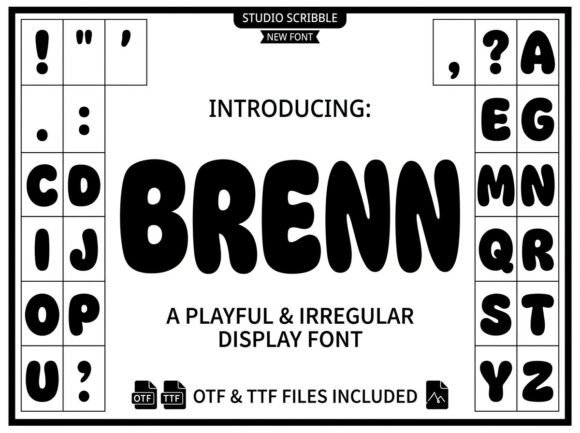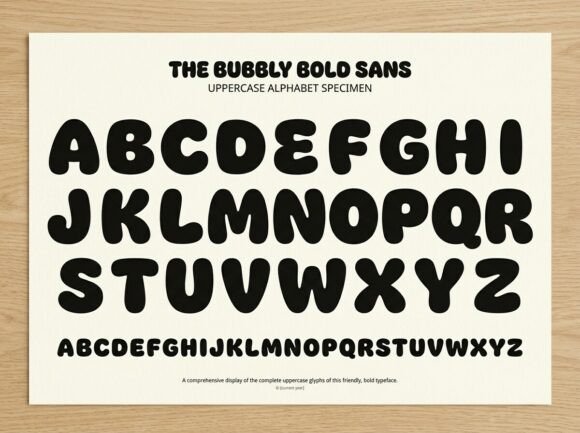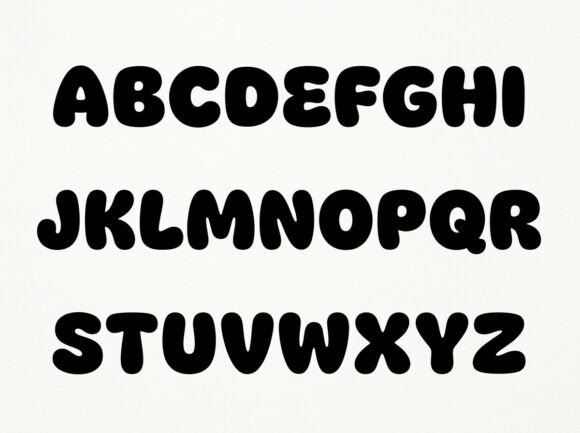
Introducing Brenn Font: Elevate Your Creative Projects with a Decorative Display Font
Are you tired of using the same old fonts for your creative projects? Do you want to make a statement and add a touch of personality to your designs? Look no further than Brenn Font, a decorative display font designed to be the centerpiece of any layout. With its distinct artistic elements and strong character, Brenn Font is perfect for creators who want to break away from the ordinary and elevate their designs to the next level.
What Makes Brenn Font Special?
Brenn Font is a unique and stylish font that is designed to deliver a high-end, professional aesthetic without compromising on personality. Its bold and artistic elements make it perfect for a variety of design applications, from bold headlines to creative branding and packaging. Whether you’re a graphic designer, crafty DIY enthusiast, or entrepreneur looking to create a strong brand identity, Brenn Font is the perfect choice.
Key Features of Brenn Font
So, what can you expect from Brenn Font? Here are some of its key features:
• All-Caps Display Typeface: Brenn Font is an all-caps display typeface, designed specifically for bold headlines, titles, and decorative initials. By design, it does not contain lowercase letters, making it a powerful tool for logos, titles, and other design applications where a strong, bold font is needed.
Uses for Brenn Font
So, what can you use Brenn Font for? The possibilities are endless! Here are some ideas to get you started:
• Bold Headlines: Use Brenn Font to create bold, eye-catching headlines that grab attention and make a statement.
• Branding and Packaging: Brenn Font is perfect for creating a strong brand identity, from logos to packaging. Its bold and artistic elements make it perfect for brands that want to stand out from the crowd.
• Graphic Design: Brenn Font is a versatile font that can be used for a variety of graphic design applications, from brochures to posters, and more.
• Crafting and DIY Projects: Brenn Font is also perfect for crafty DIY enthusiasts who want to add a touch of personality to their projects, from handmade cards to scrapbooking.
Why Choose Brenn Font?
So, why choose Brenn Font over other fonts? Here are just a few reasons:
• Unique and Stylish: Brenn Font is a unique and stylish font that is sure to make your designs stand out from the crowd.
• High-End Aesthetic: Brenn Font delivers a high-end, professional aesthetic without compromising on personality.
• Versatile: Brenn Font is a versatile font that can be used for a variety of design applications, from bold headlines to creative branding and packaging.
In conclusion, Brenn Font is a decorative display font that is perfect for creators who want to elevate their designs to the next level. With its distinct artistic elements and strong character, Brenn Font is perfect for a variety of design applications, from bold headlines to creative branding and packaging. Its high-end aesthetic, versatility, and ease of use make it a must-have font for any designer or crafty DIY enthusiast looking to add a touch of personality to their projects.